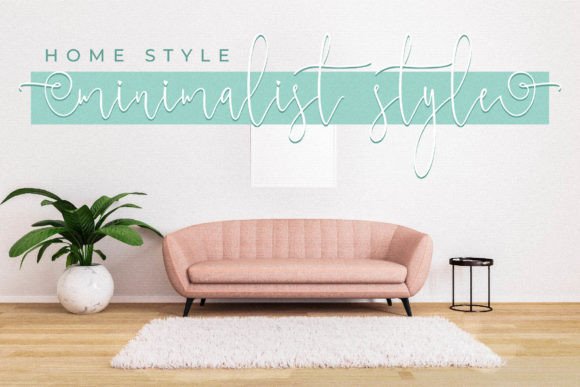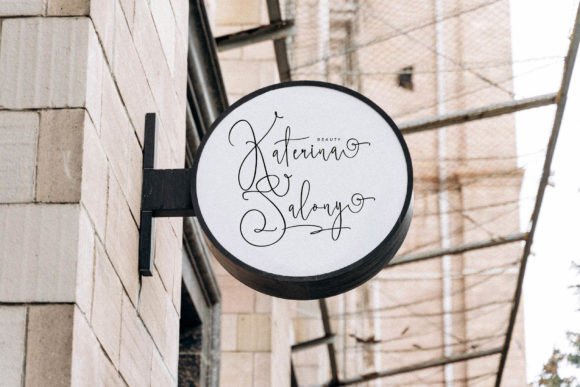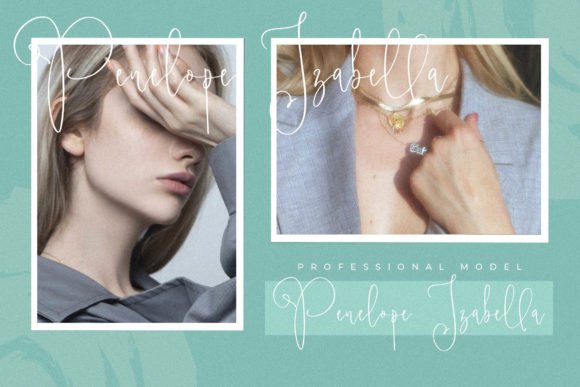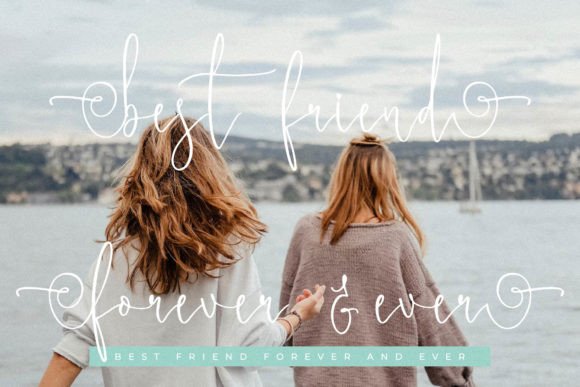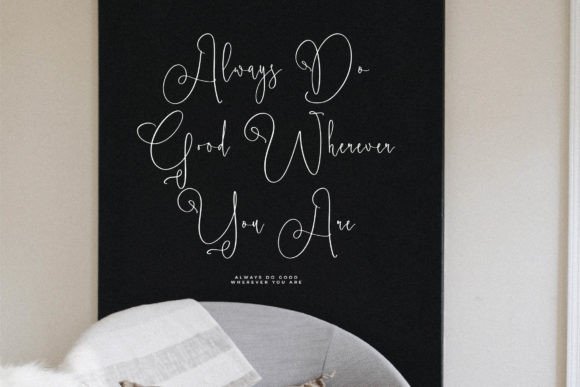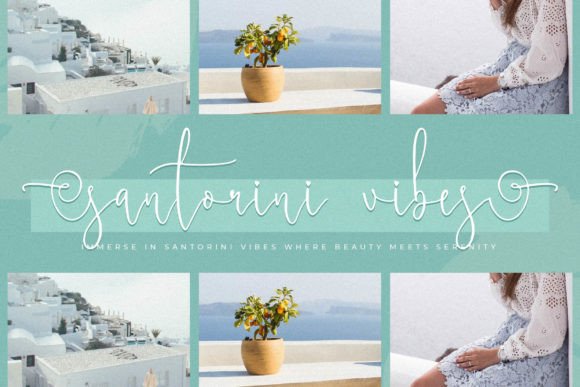
Broklyn Sparkly Font: Elevate Your Designs with Luxury and Elegance
Are you a designer or crafter looking for a font that exudes luxury and sophistication? Look no further than Broklyn Sparkly, a stunning script font from Glorytype Studio. This beautiful font is perfect for a wide range of projects, from logos and branding to homeware designs, product packaging, and more.
What is Broklyn Sparkly Font?
Broklyn Sparkly is a script font that embodies the essence of luxury and elegance. With its flowing curves and sparkling details, this font is sure to add a touch of sophistication to any design. Whether you’re working on a logo, brochure, or packaging design, Broklyn Sparkly is the perfect choice.
Features of Broklyn Sparkly Font
- Beautiful Script: Broklyn Sparkly features a stunning script that is both elegant and sophisticated.
- Versatile: This font is suitable for a wide range of projects, from logos and branding to homeware designs, product packaging, and more.
- High-Quality: Broklyn Sparkly is a high-quality font that is designed to produce crisp and clear results, even at small sizes.
Uses of Broklyn Sparkly Font
Broklyn Sparkly is a versatile font that can be used for a wide range of projects, including:
- Logos and Branding: Create a luxurious and sophisticated brand identity with Broklyn Sparkly.
- Homeware Designs: Add a touch of elegance to your homeware designs, such as stationery, gift tags, and more.
- Product Packaging: Elevate your product packaging with Broklyn Sparkly, perfect for luxury goods and high-end products.
- Mugs and Ceramics: Create beautiful and unique designs for mugs, ceramics, and other home decor items.
- Quotes and Posters: Add a touch of sophistication to your quotes and posters with Broklyn Sparkly.
- Shopping Bags and T-Shirts: Create eye-catching designs for shopping bags and t-shirts that will make your brand stand out.
- Book Covers and Name Cards: Use Broklyn Sparkly to create stunning book covers and name cards that exude luxury and elegance.
- Invitation Cards and Greeting Cards: Create beautiful and elegant invitation cards and greeting cards with Broklyn Sparkly.
- Labels and Photography: Use Broklyn Sparkly to create stunning labels and watermarks for your photography projects.
Why Choose Broklyn Sparkly Font?
There are many reasons why Broklyn Sparkly is the perfect font for your design projects. Here are just a few:
- Unique and Elegant: Broklyn Sparkly is a unique and elegant font that will add a touch of sophistication to any design.
- High-Quality: This font is designed to produce high-quality results, even at small sizes.
- Versatile: Broklyn Sparkly can be used for a wide range of projects, from logos and branding to homeware designs and product packaging.
In conclusion, Broklyn Sparkly is a stunning script font that is perfect for designers and crafters looking to add a touch of luxury and elegance to their projects. With its flowing curves and sparkling details, this font is sure to elevate your designs and make them stand out. Whether you’re working on a logo, brochure, or packaging design, Broklyn Sparkly is the perfect choice.